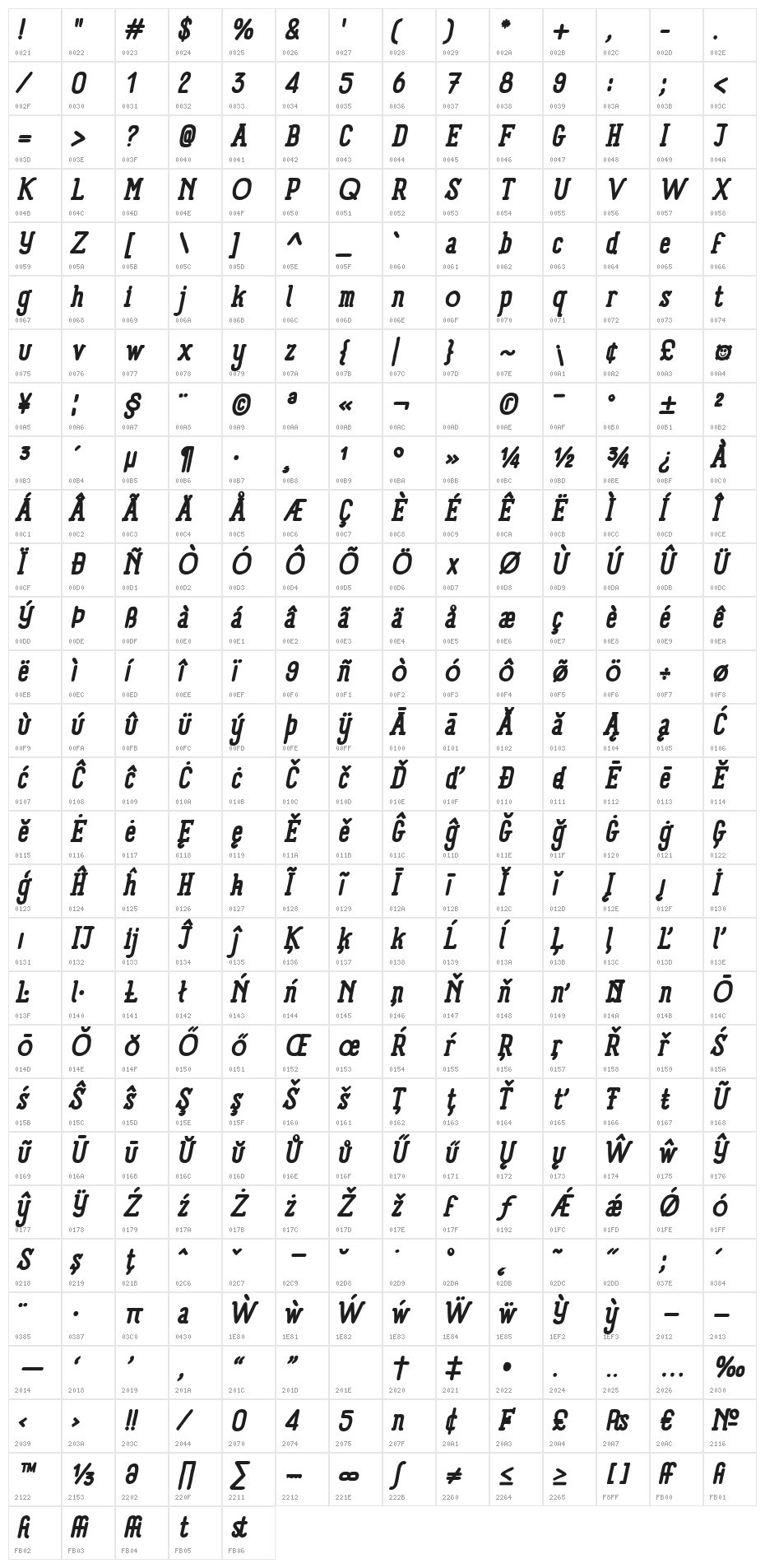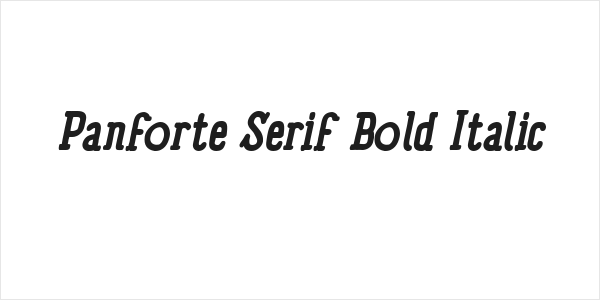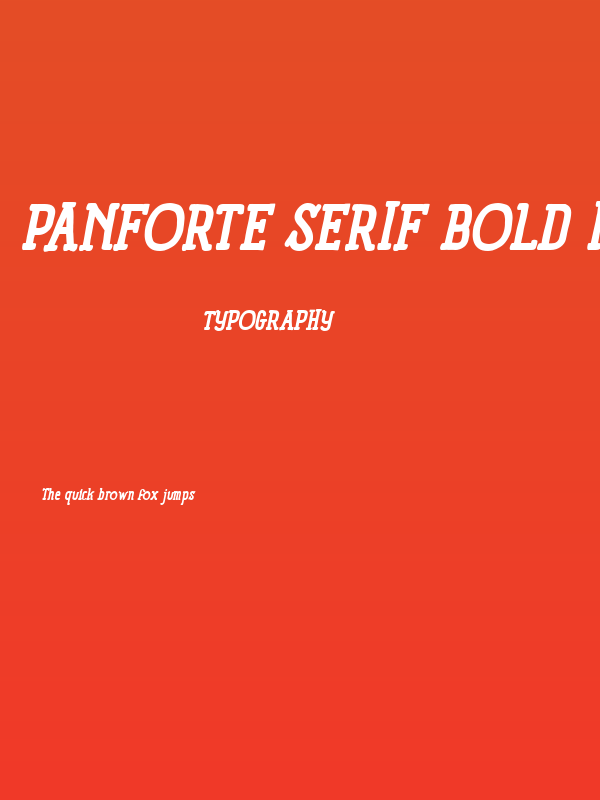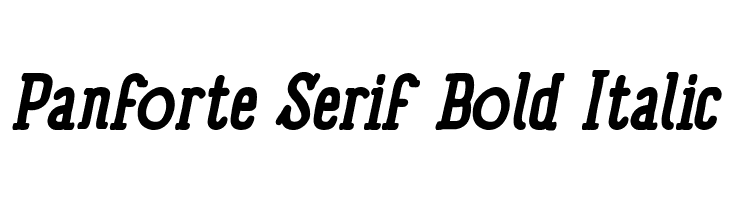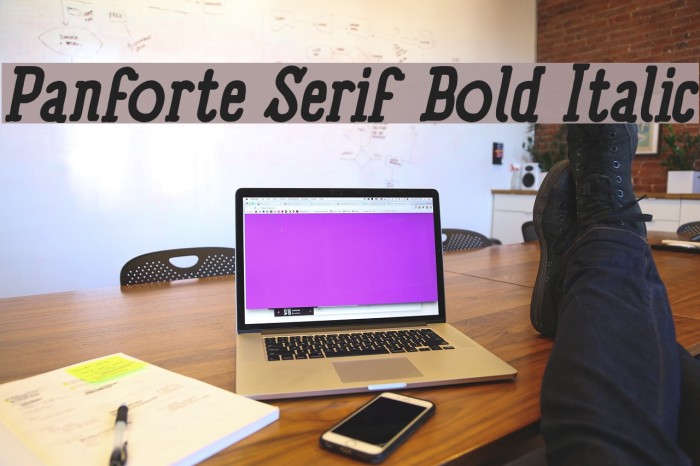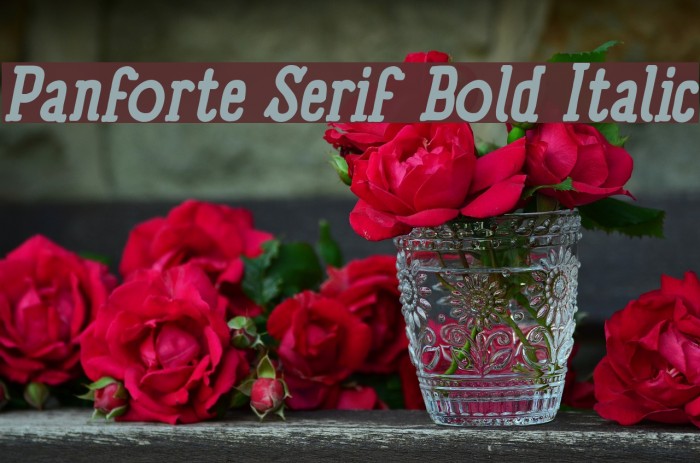
Panforte Serif Bold Italic Font
Panforte Serif Bold Italic Description
This font exhibits a bold and italicized serif style, characterized by its strong and dynamic presence. The letters are slightly slanted, giving a sense of motion and elegance. The serifs are pronounced, adding a classic touch to the overall modern design. The strokes are thick and consistent, providing a robust appearance. The numbers and special characters maintain the same bold and italicized characteristics, ensuring uniformity across all glyphs. This font's boldness and slant make it particularly eye-catching, suitable for making a statement in any design project.
| Proposed Projects | Ideal for headlines, branding, posters, and any design requiring a bold statement. |